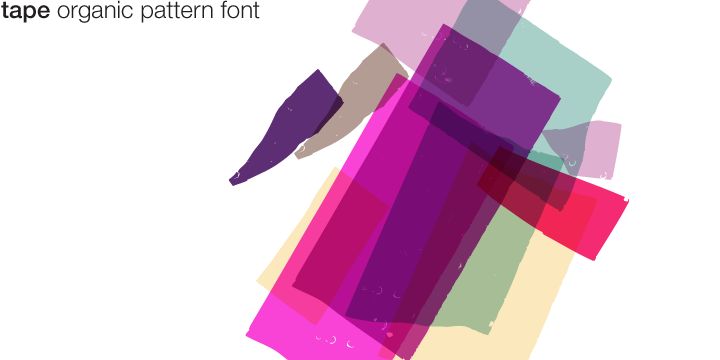
Tape™ is a pattern font consisting of 52 distinctive illustrations created with torn and stuck together packaging tape. It was inspired by our fascination with irregular arrangements and shapes found in nature and in man-made structures. Tape™ is part of a series of organic pattern fonts which are featured in our pattern inspiration book Organic.
Tape